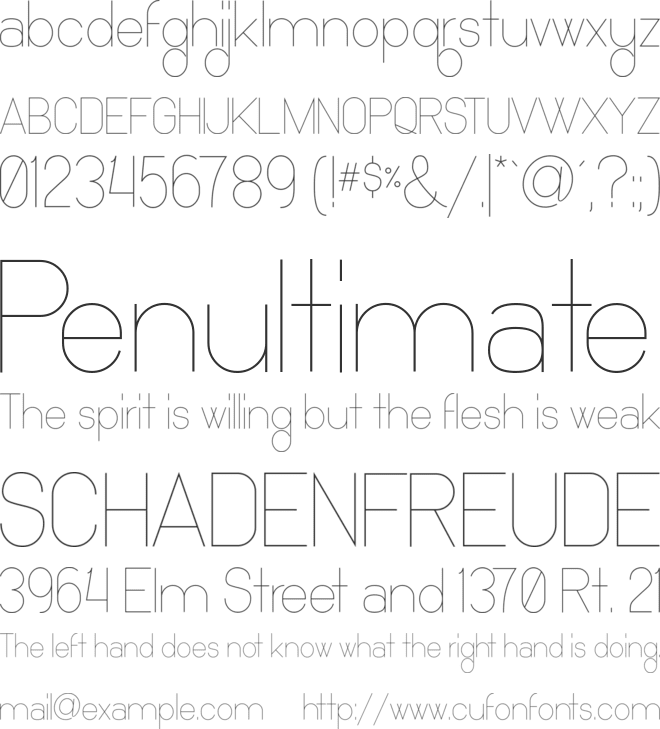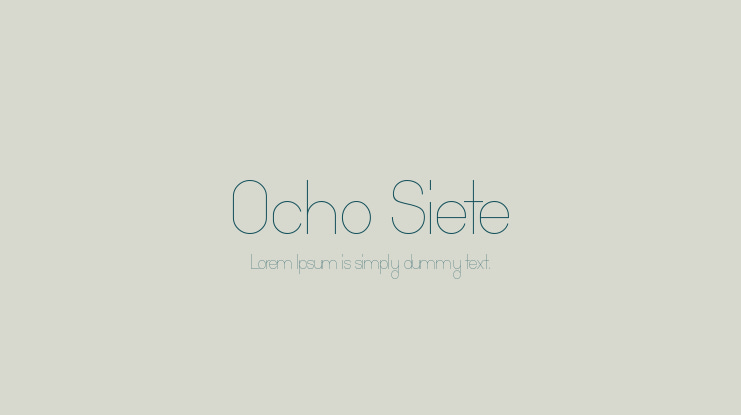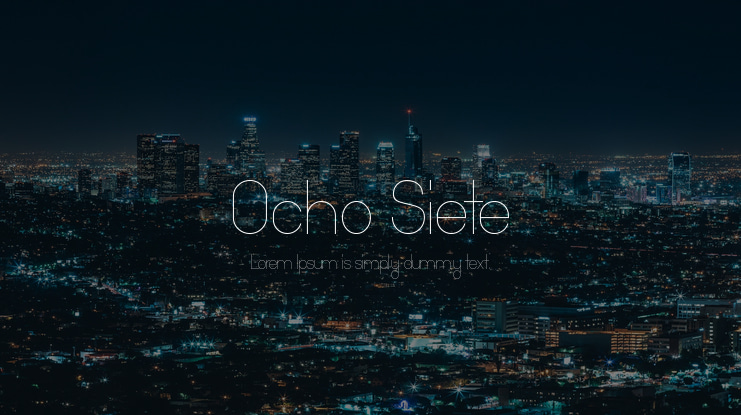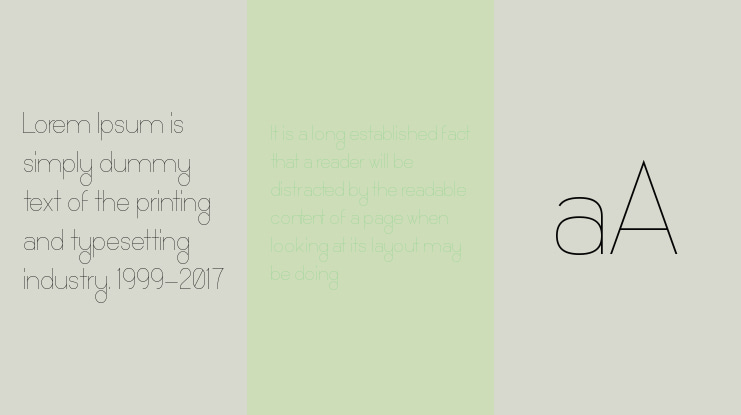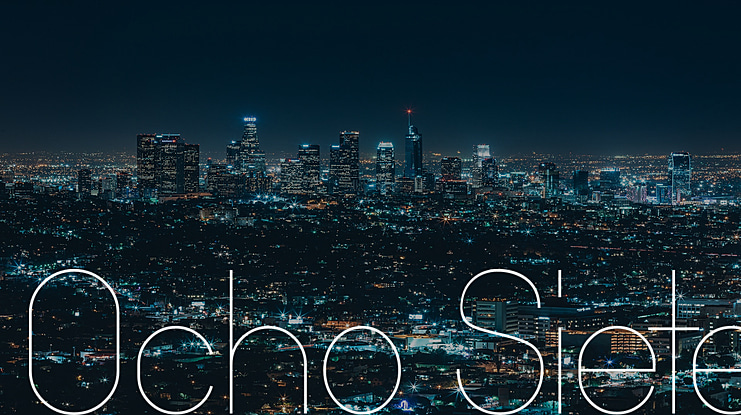
Ocho Siete Font
Ocho Siete is one of the first fonts that I made. I was happy with it at the time and I received alot of positive feedback, but the more I learned about making fonts the more painful it became to look at.
This version retains the original feel of the font, but has been redesigned from the ground up.
This version includes:
- Better Spacing - Improved Letter Design - Improved Letter Spacing - Tons of Added Symbols - A Veritable Buttload of Class
In the future look forward to a bold and black weight. Happy designing!